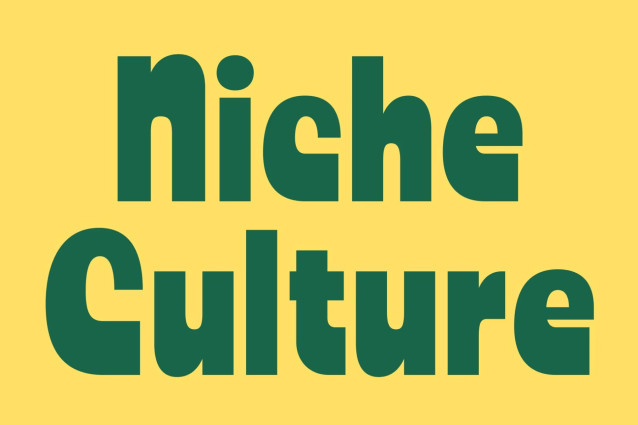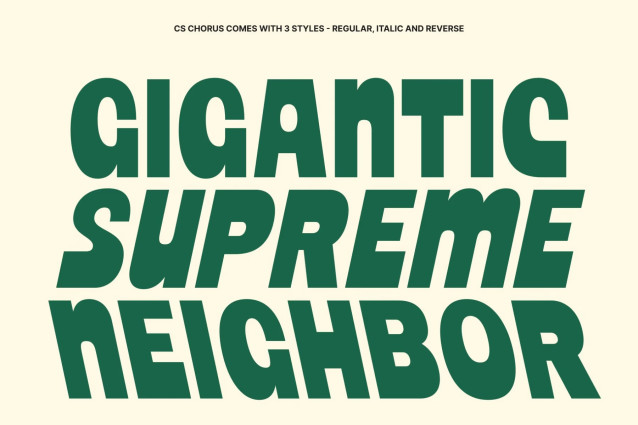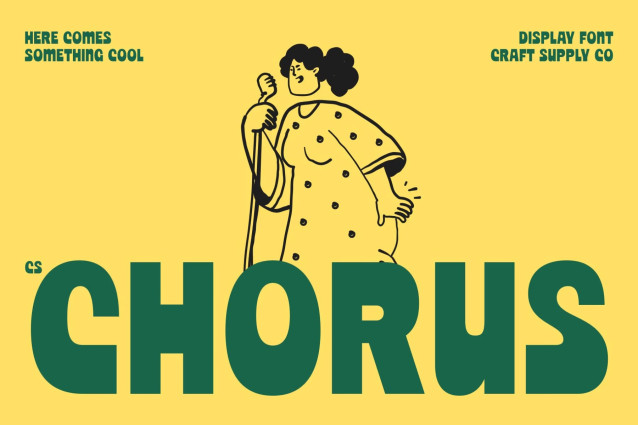
CS Chorus – Bold Display Sans Serif Font: Where Retro Playfulness Meets Friendly Modern Design
Bold Rounded Display Sans Serif with Cheerful Character
This is a bold rounded display sans serif font featuring playful curves, generous proportions, and a warm, approachable appearance. Its bold construction creates strong visual impact, while the rounded edges soften the overall look, resulting in typography that feels energetic, inviting, and effortlessly memorable.
Retro Personality with Contemporary Appeal
This font brings nostalgic charm into a modern design context. Its expressive letterforms evoke the fun and optimism of vintage graphics while maintaining the clean simplicity expected in contemporary branding. This balance makes the font versatile across a wide range of creative applications.
Friendly Typography with Expressive Energy
This font creates a distinctive visual identity that is both playful and confident. Its lively personality adds warmth and creativity to every composition, making headlines and brand messages feel more engaging, approachable, and full of character.